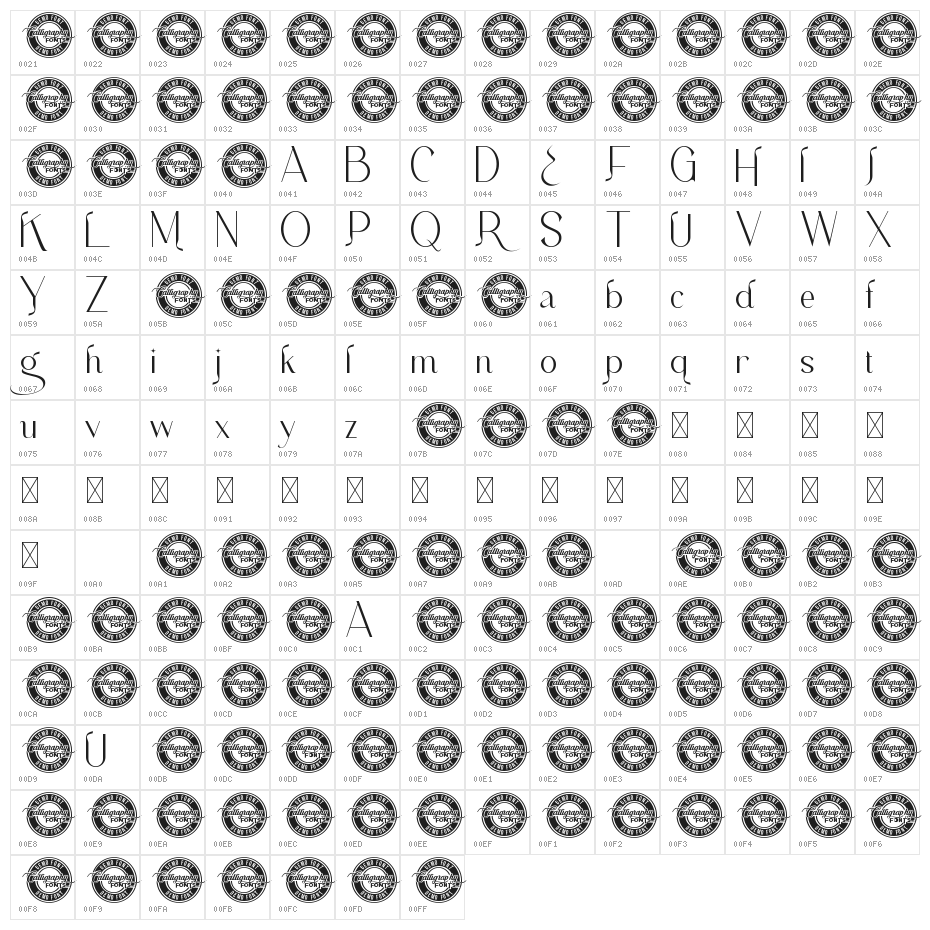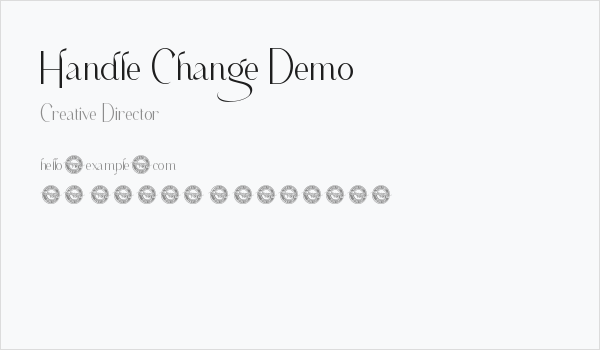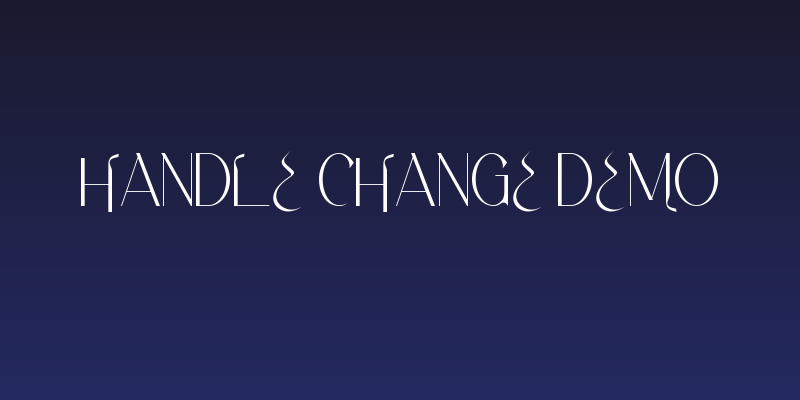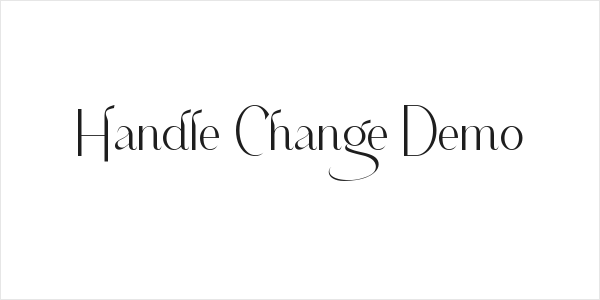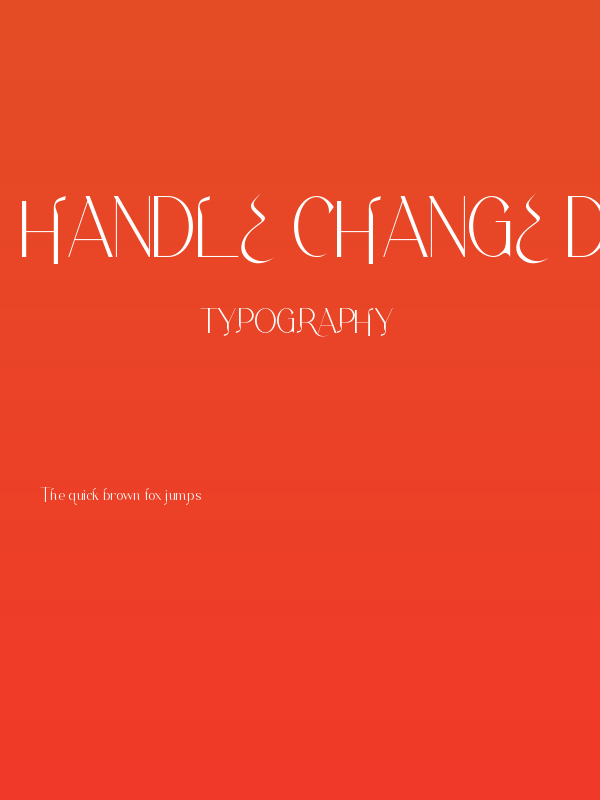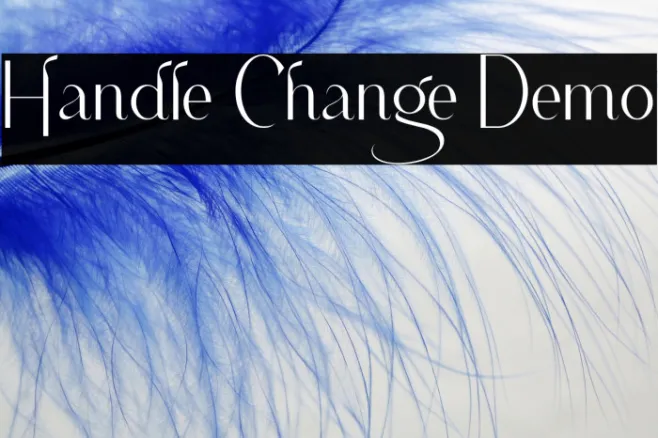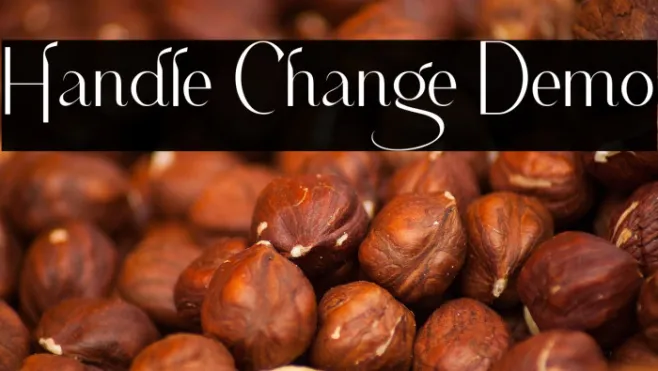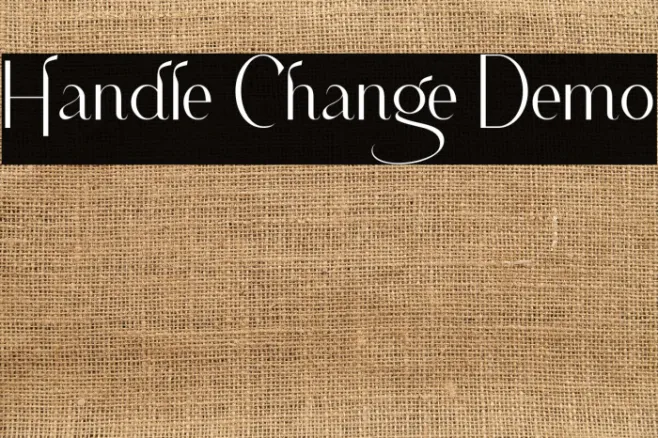
Handle Change Demo Font
Handle Change Demo Description
This font features a unique blend of modern and classic elements, characterized by its elegant and flowing strokes. The uppercase letters exhibit a sophisticated flair with elongated verticals and subtle curves, while the lowercase letters maintain a harmonious balance with their smooth, rounded forms. The font's distinctive style is further enhanced by its high contrast between thick and thin strokes, giving it a dynamic and eye-catching appearance. The special characters are thoughtfully designed to complement the overall aesthetic, making this font suitable for a variety of creative applications.
| Proposed Projects | Ideal for luxury branding, wedding invitations, editorial design, and high-end product packaging. |